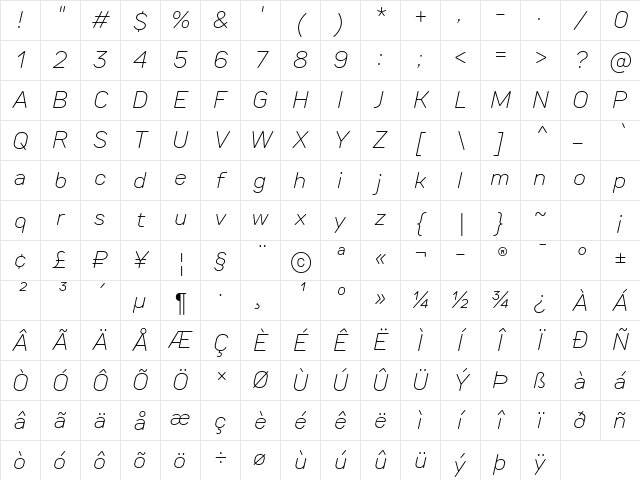
TT Rounds Neue Trial ExtraLight Italic
Designer: Designed by Ivan Gladkikh, Yulia Gonina. Technical designers Olexa Volochay, Philipp Nurullin, Nadyr Rakhimov, Marina Khodak, Anastasia Pogorelova, Yuriy Nako, Victor Rubenko.
Design Context for TT Rounds Neue Trial
TT Rounds Neue Trial softens its letterforms with rounded terminals, giving it an approachable, friendly quality that works well in consumer-facing and digital contexts. The slanted form adds forward momentum and visual energy. Its slender proportions lend an understated elegance to any composition.
Font Pairing: Pairs well with a rounded or humanist sans for body copy, maintaining the friendly tone without relying on TT Rounds Neue Trial to carry extended reading.
Pro Tip: Use TT Rounds Neue Trial for UI elements, app interfaces, and anywhere a friendly, approachable tone needs to be maintained without sacrificing clarity.